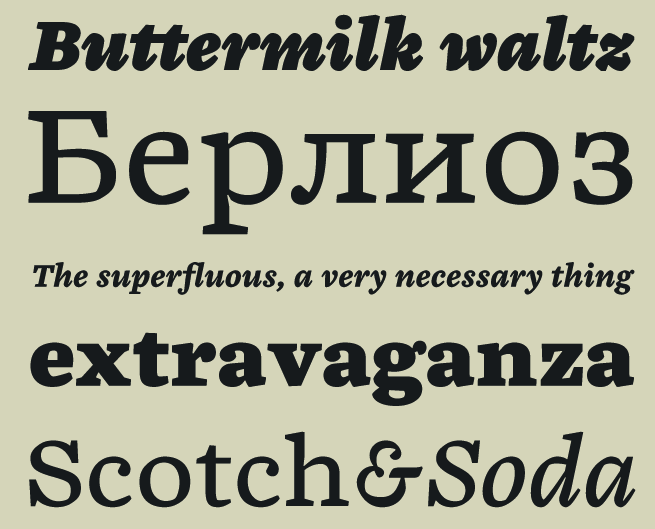
Nikola Kostic
Graphic design graduate from the Faculty of Applied Arts (Belgrade), 2003. Graphic and type designer who lives in Belgrade. Together with his father, type designer Zoran Kostic, he runs Kostic Type Foundry (est. 2010). His first commercial font there is the Old Slavonic simulation face Taurunum (2011). He also made the Battlefin text family (2011), the organic Pagewalker (2011), and the slab family Battleslab (2011). Typefaces from 2012: Kostic Serif (2012) is a classical transitional family codesigned by Nikola and Zoran. Argumentum is a balanced and stylish display face. Breakers is a sans typeface family that covers all weights, from Thin to Ultra. Its companion is Breakers Slab. Typefaces from 2013: Bicyclette (a wonderful sans family, from Thin to Black, with small x-heigt, wide spacing, and gentle understated rounding). |